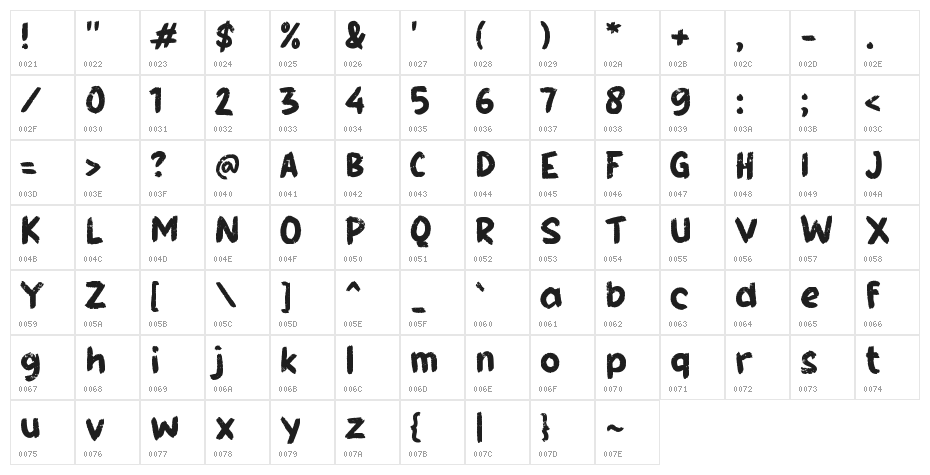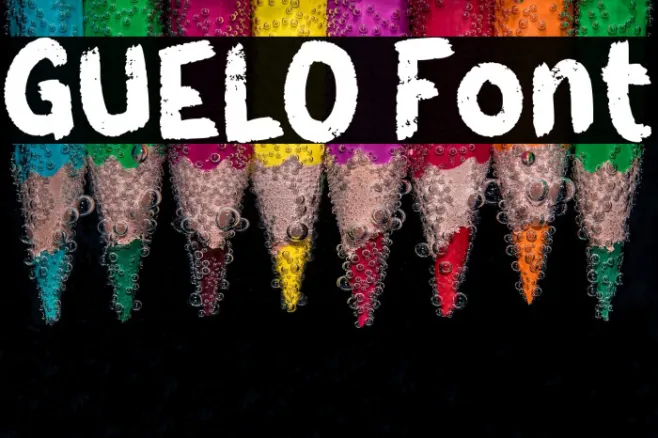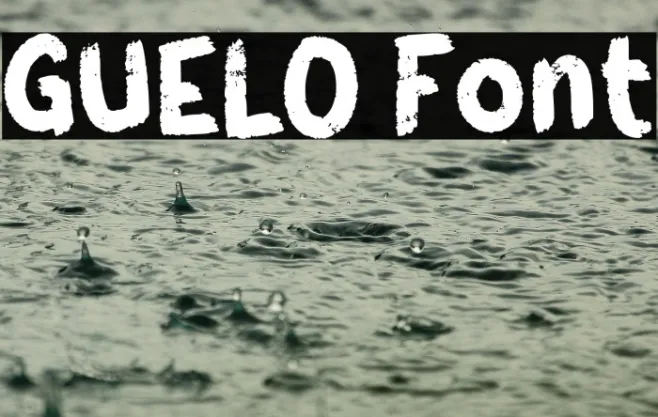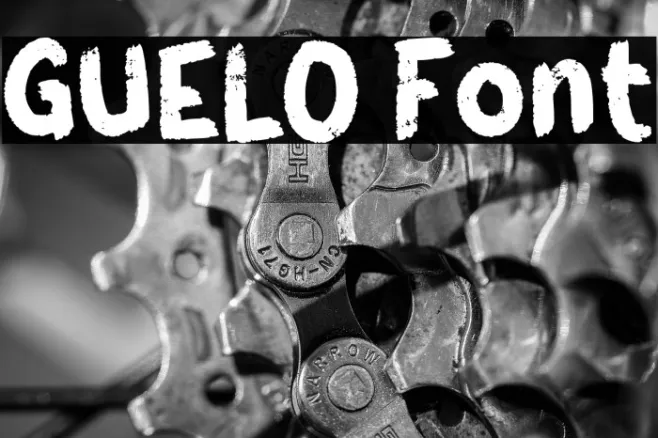
GUELO Font
GUELO Description
This font features a bold and textured style, reminiscent of brush strokes or chalk on a rough surface. The characters have an organic and dynamic appearance, with uneven edges that add a sense of movement and energy. The uppercase and lowercase letters maintain a consistent weight, providing a cohesive look across the alphabet. Numbers and special characters follow the same design principles, ensuring uniformity. The font's rugged texture makes it stand out, ideal for projects requiring a bold statement.